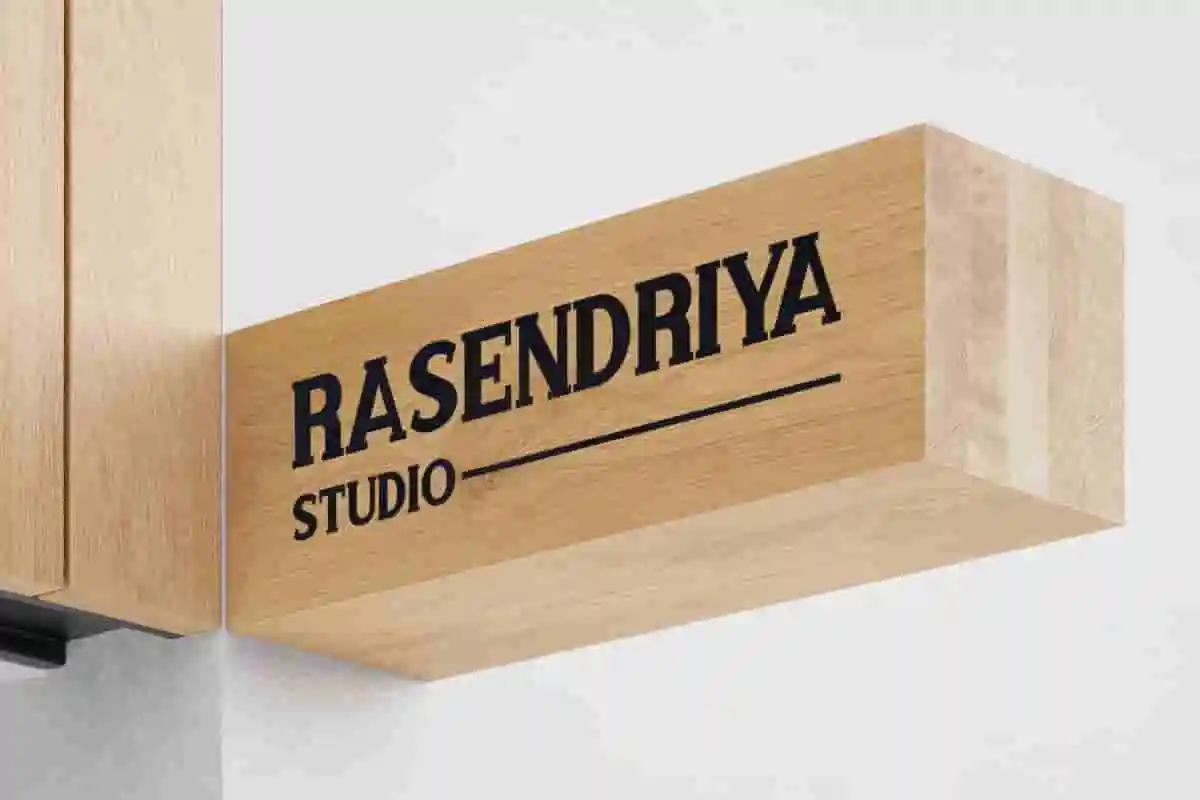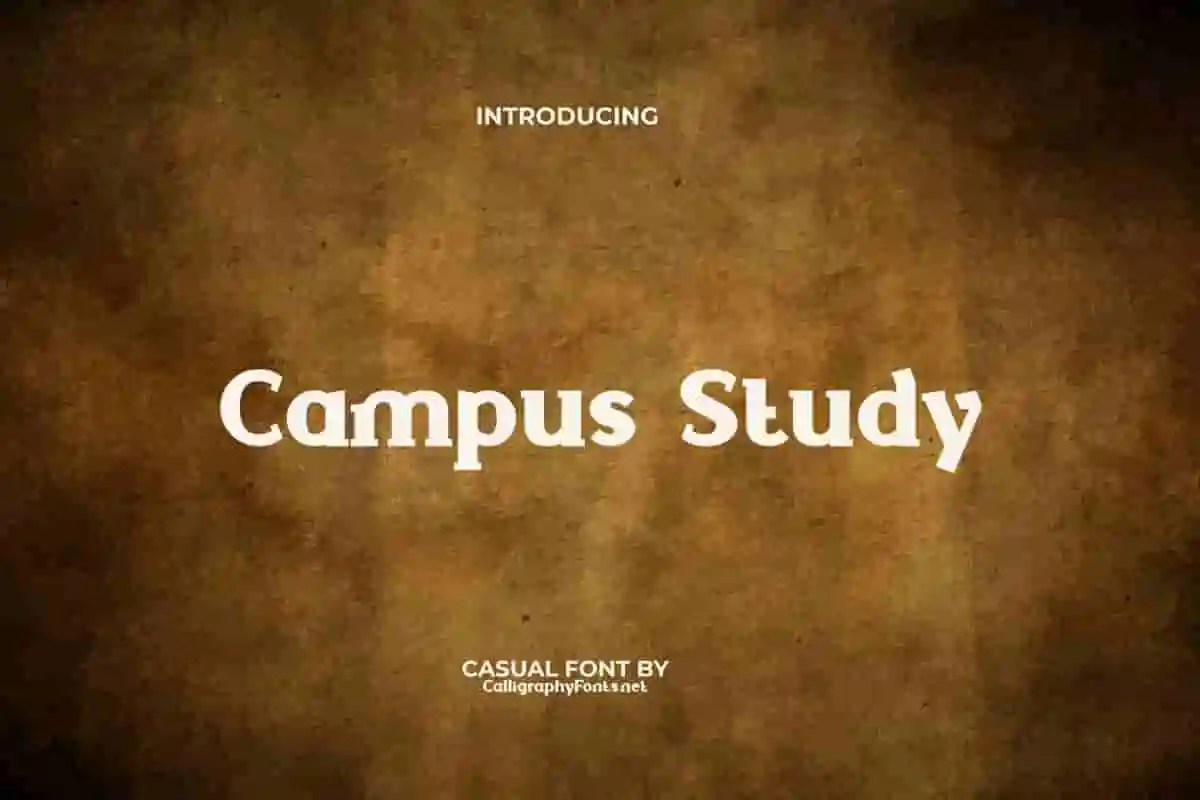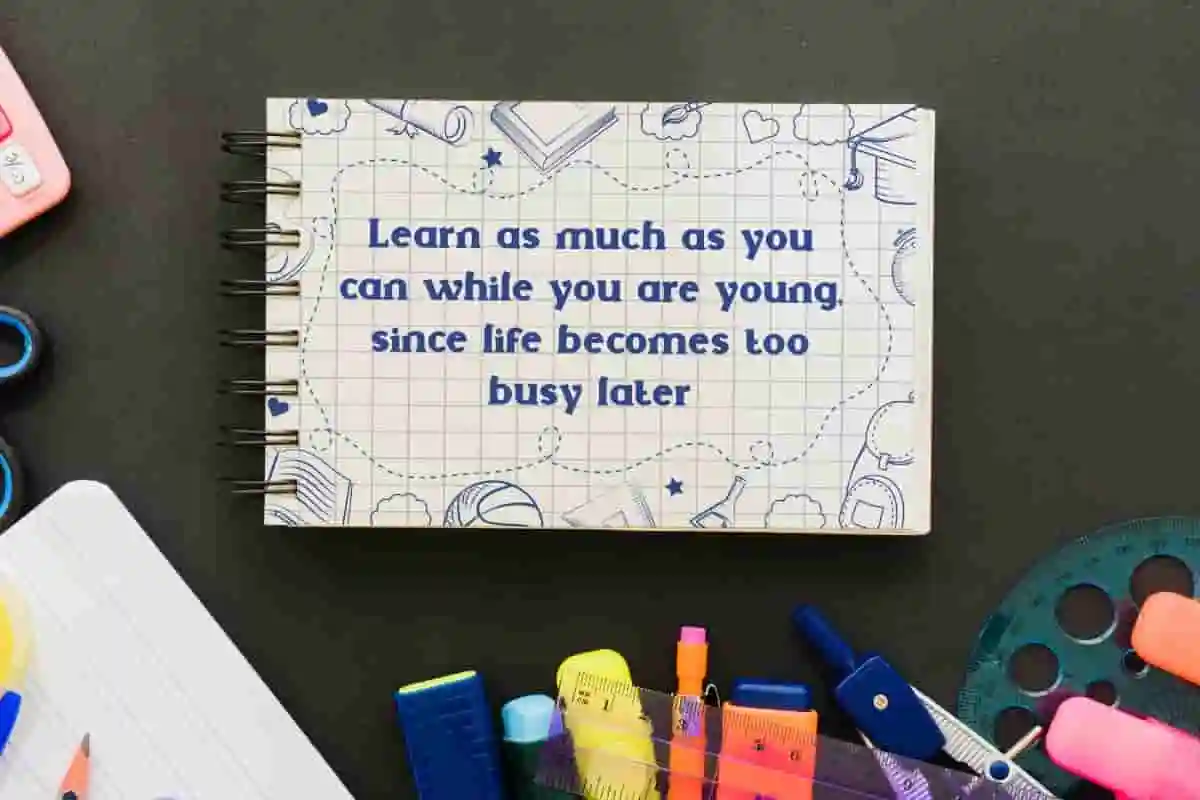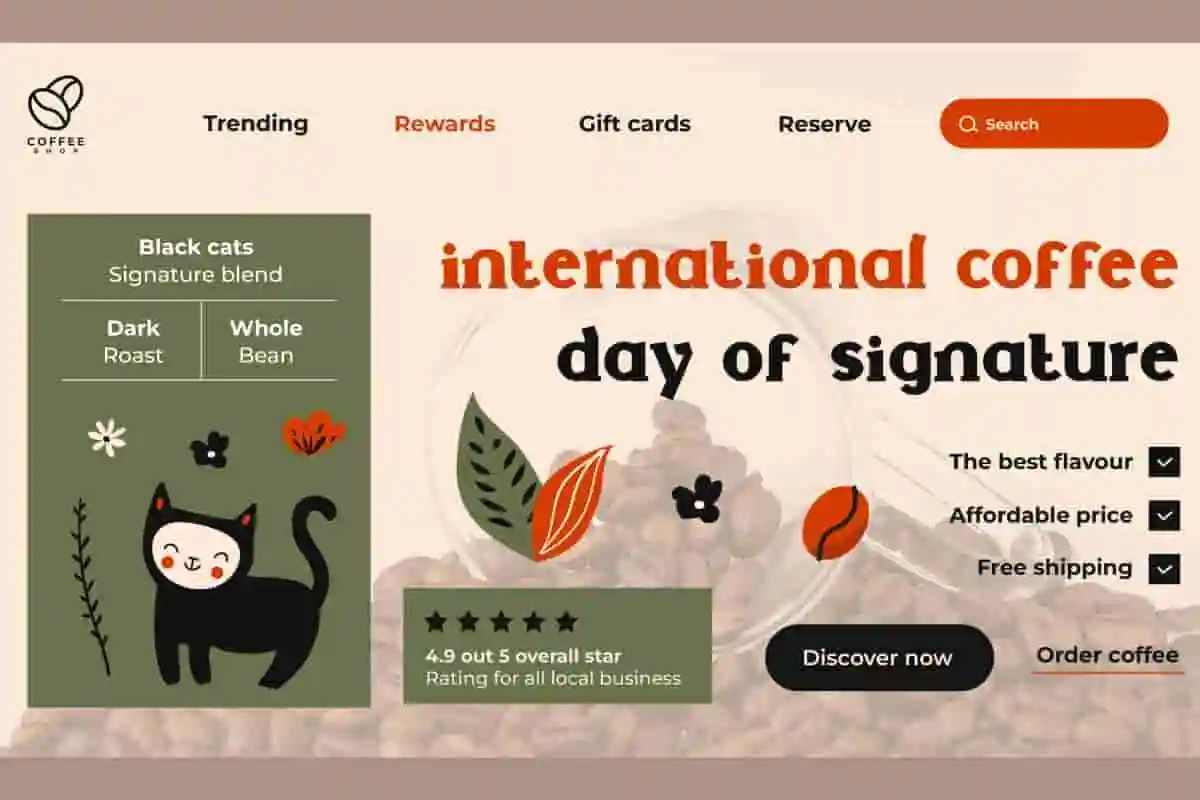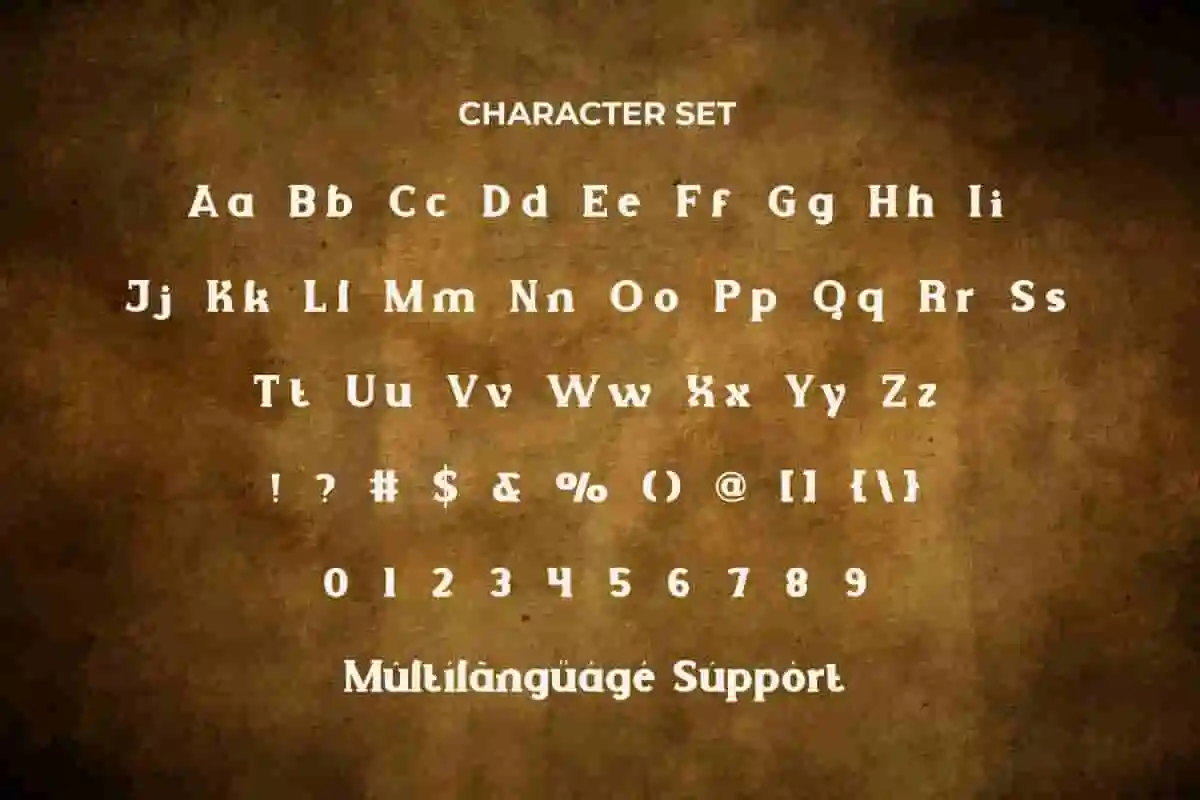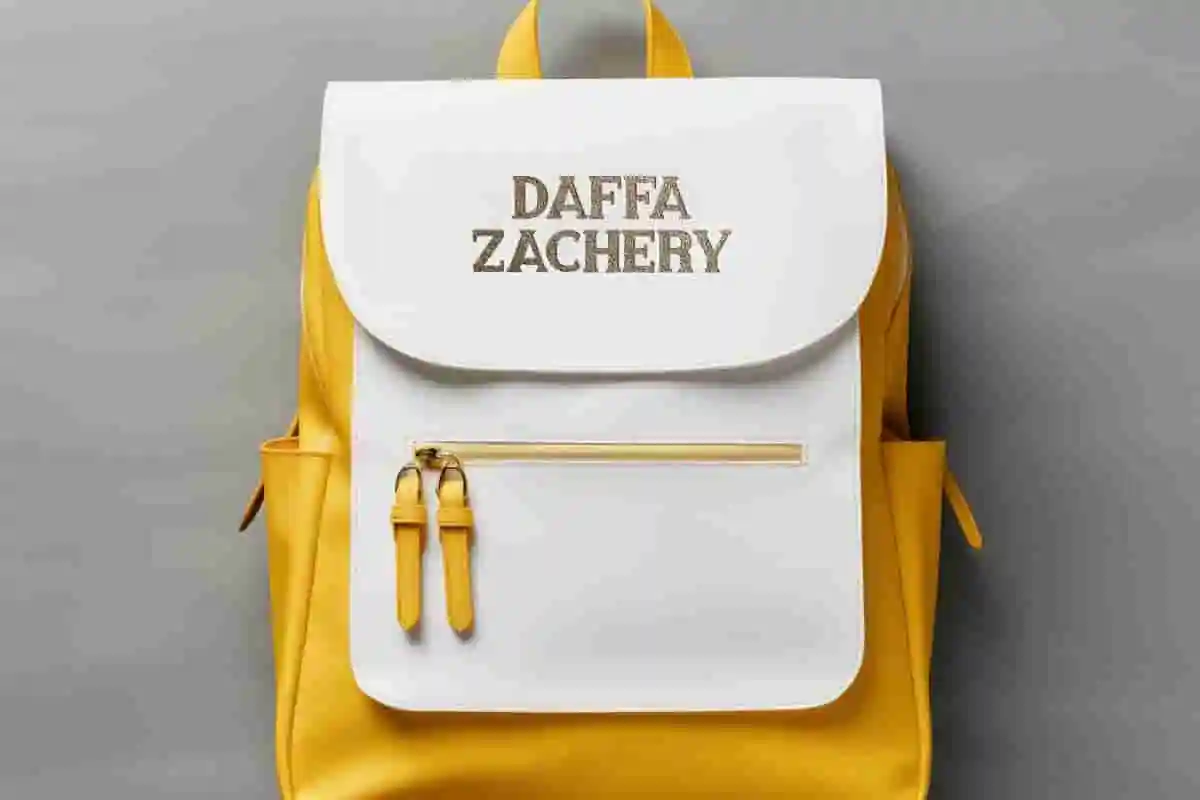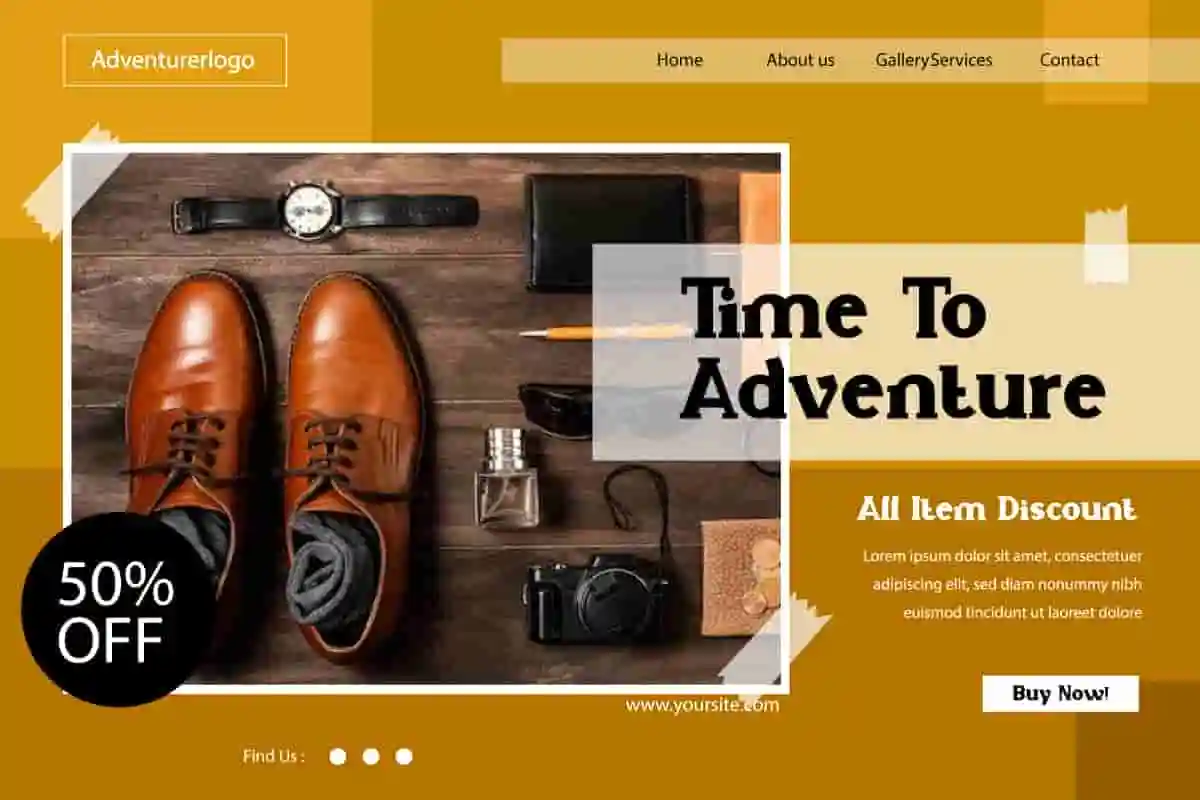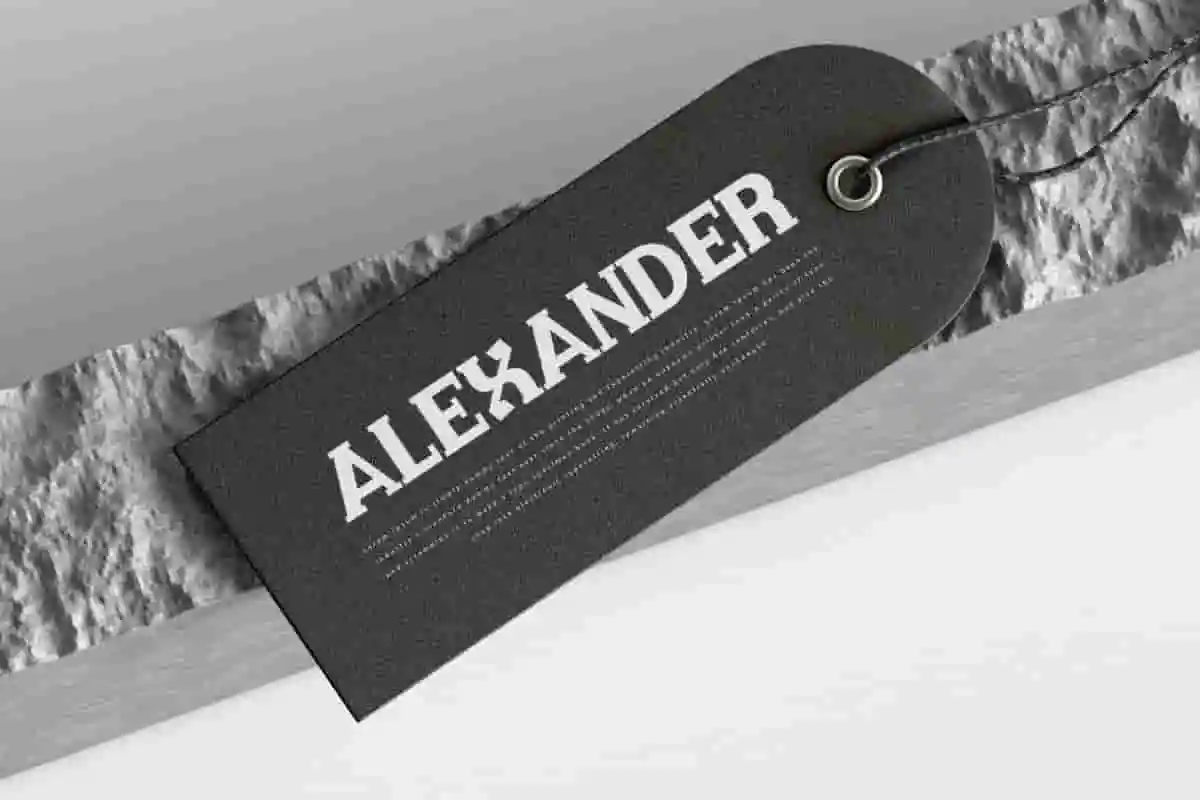
Campus Study Display Font
Campus Study Font is a casual vintage classic campus font that inspired from retro style. This font is suitable for branding, clothes, covers, graphic design, posters, school and much more.
Campus Study Font is a casual vintage classic campus font with a friendly and warm personality. This letterform is basically made casual by presenting a balance between traditional and modernity. It is the ideal typeface for banner, brochure, headers, heading, label tag, logos, poster, quotes, screen print, signage, stamp, title, web design, and much more.
Say hello to Campus Study, a bold and confident display font inspired by traditional college and varsity aesthetics. Perfect for adding an academic, sporty, or retro edge to your designs. Whether you’re creating for school branding, university events, sports teams, or retro-themed graphics, Campus Study delivers impact with clean lines, strong structure, and nostalgic flair.
Ready to take your designs back to class? Meet Campus Study, a bold and energetic display font inspired by classic varsity lettering and academic vibes. Whether you’re designing for a school project, sports team, college merchandise, event poster, or a nostalgic throwback theme — Campus Study Display Font brings that old-school energy with a modern twist.
Inject energy and nostalgia into your projects with Campus Study — a bold, varsity-inspired display font designed for classic collegiate style. Whether you’re working on school event posters, team jerseys, club logos, or university merchandise, Campus Study gives your designs that authentic varsity look with a fresh, modern twist.
• Strong, collegiate-style
• All-caps design
Campus Study Font as a display font has the full potential to work most dominantly and centrally. This distinctive and prominent font is quite large with subtle contrast, suitable for smaller texts and leaves a lasting impression on the audience. This font is perfect for accessories and merchandise, apparel, cafes, carpenter, education, fashion, film, handicraft, menswear, movie, printing, publishing, restaurant, school, studio photography, and more!